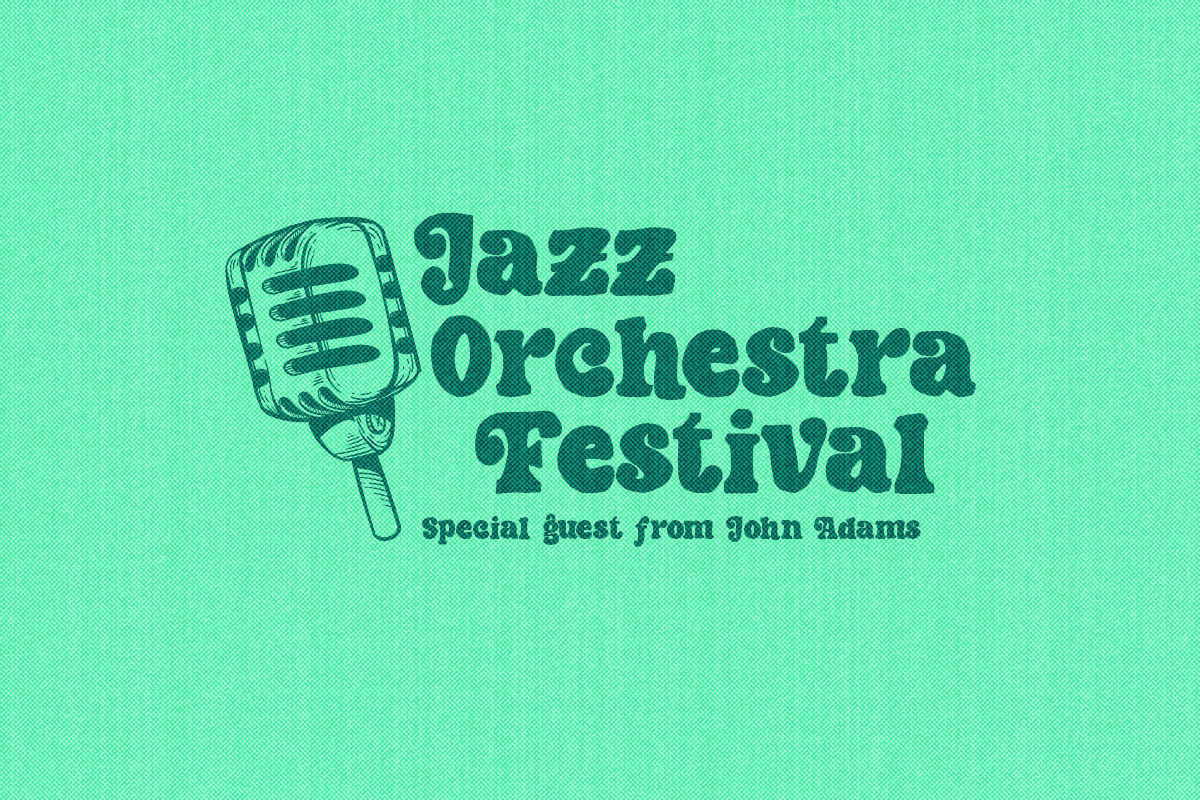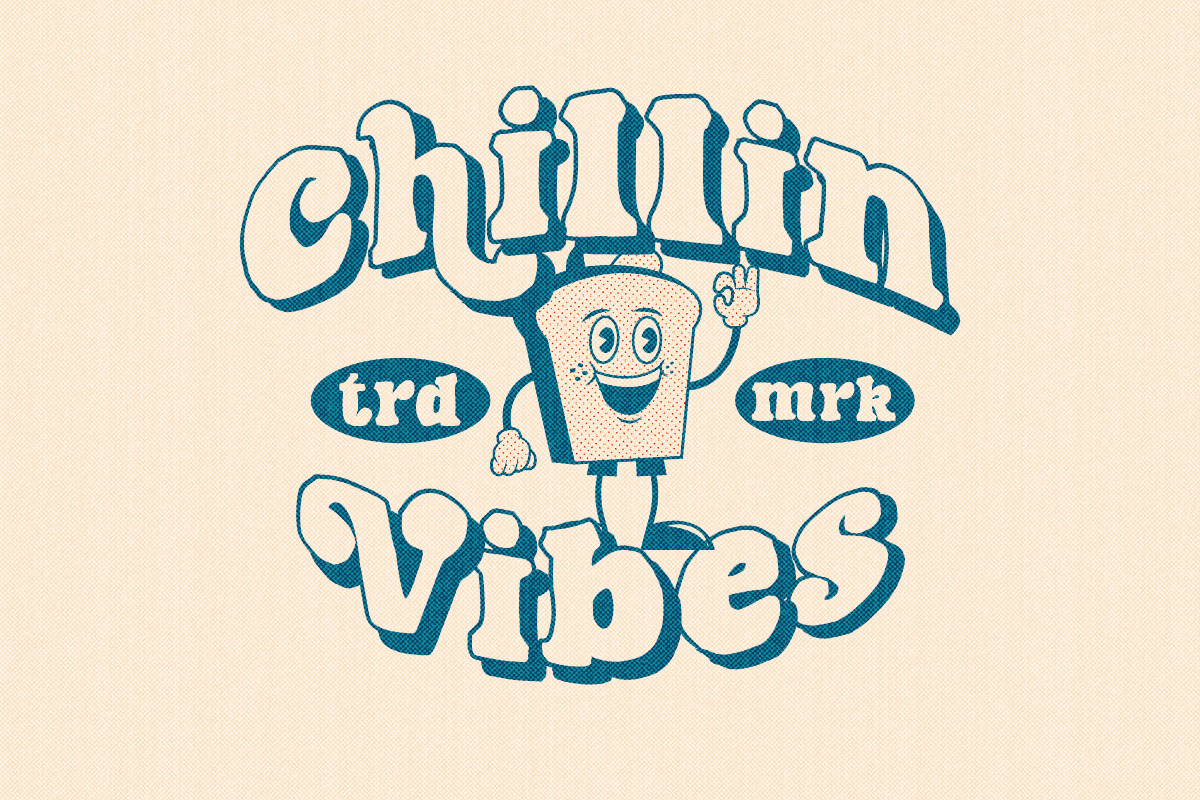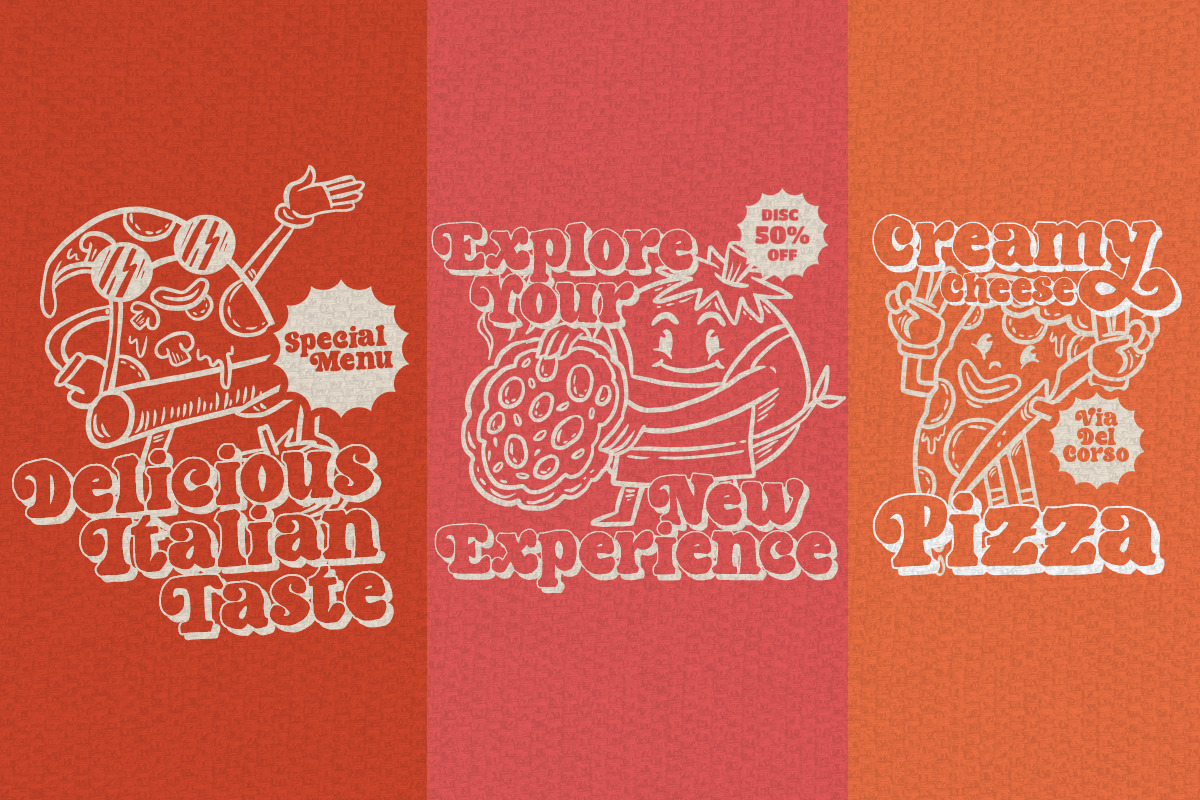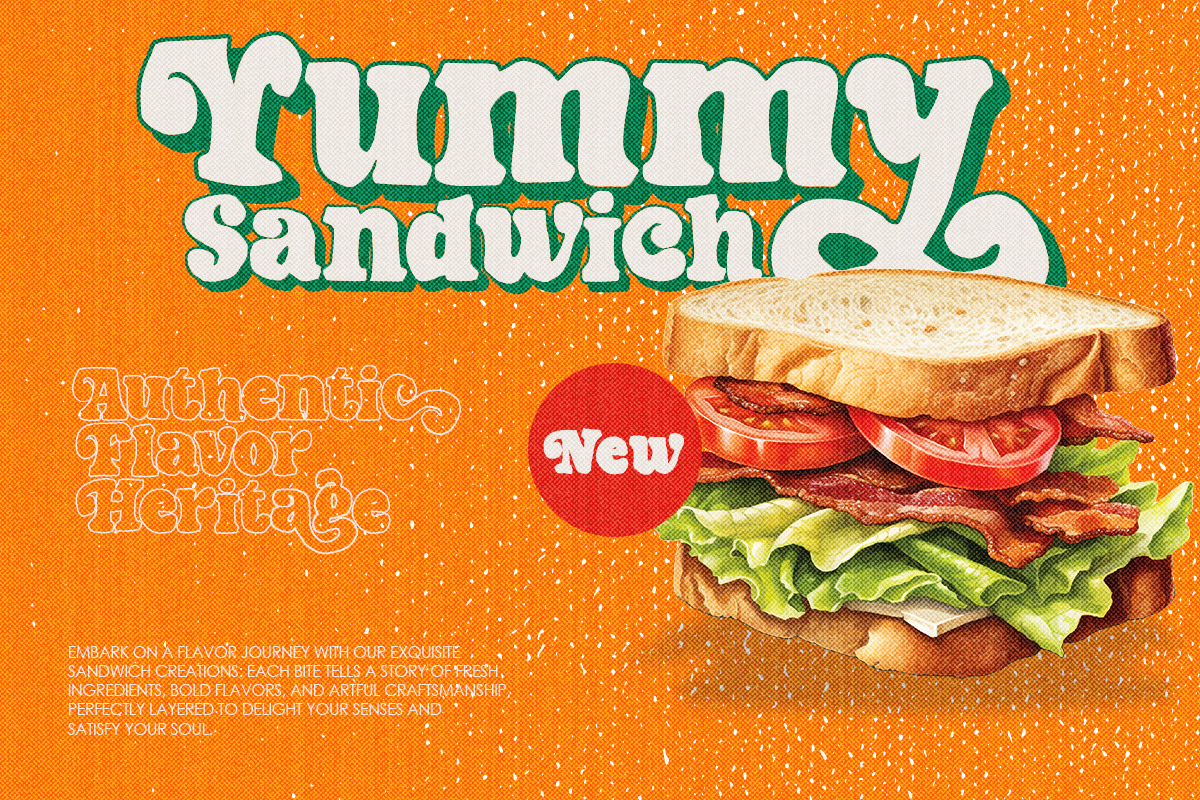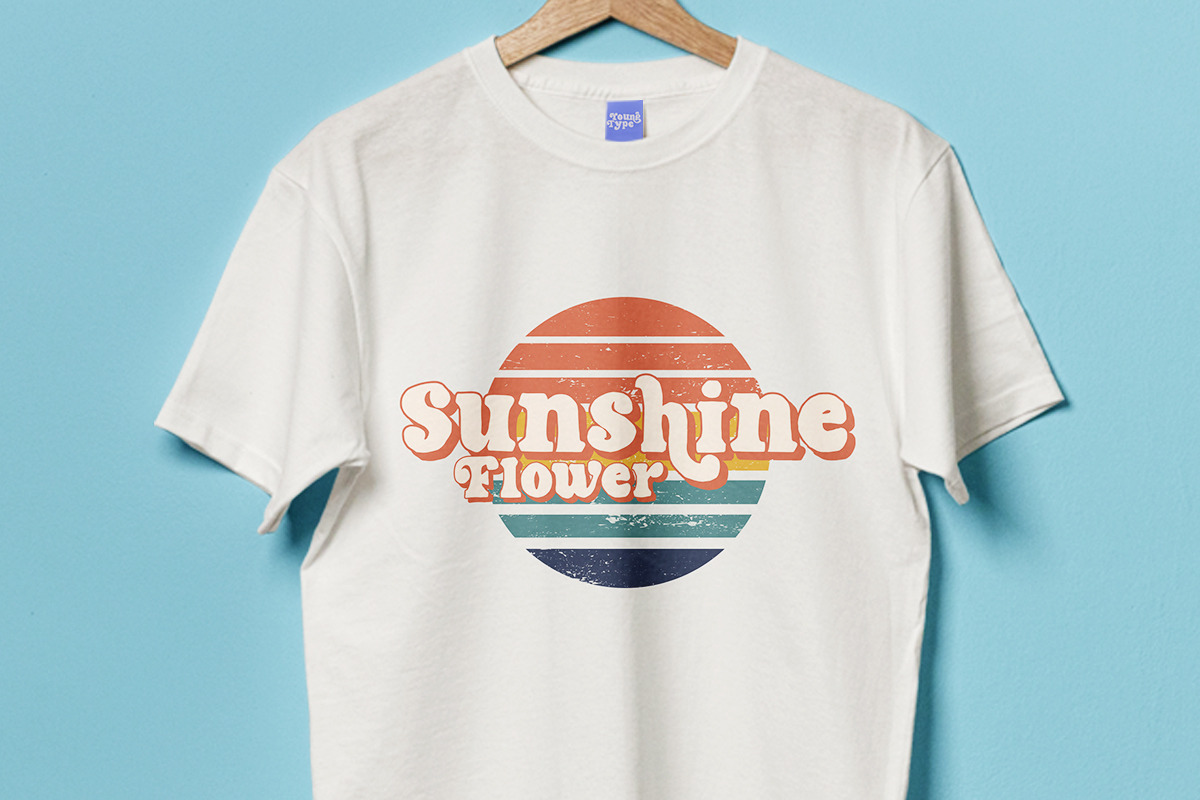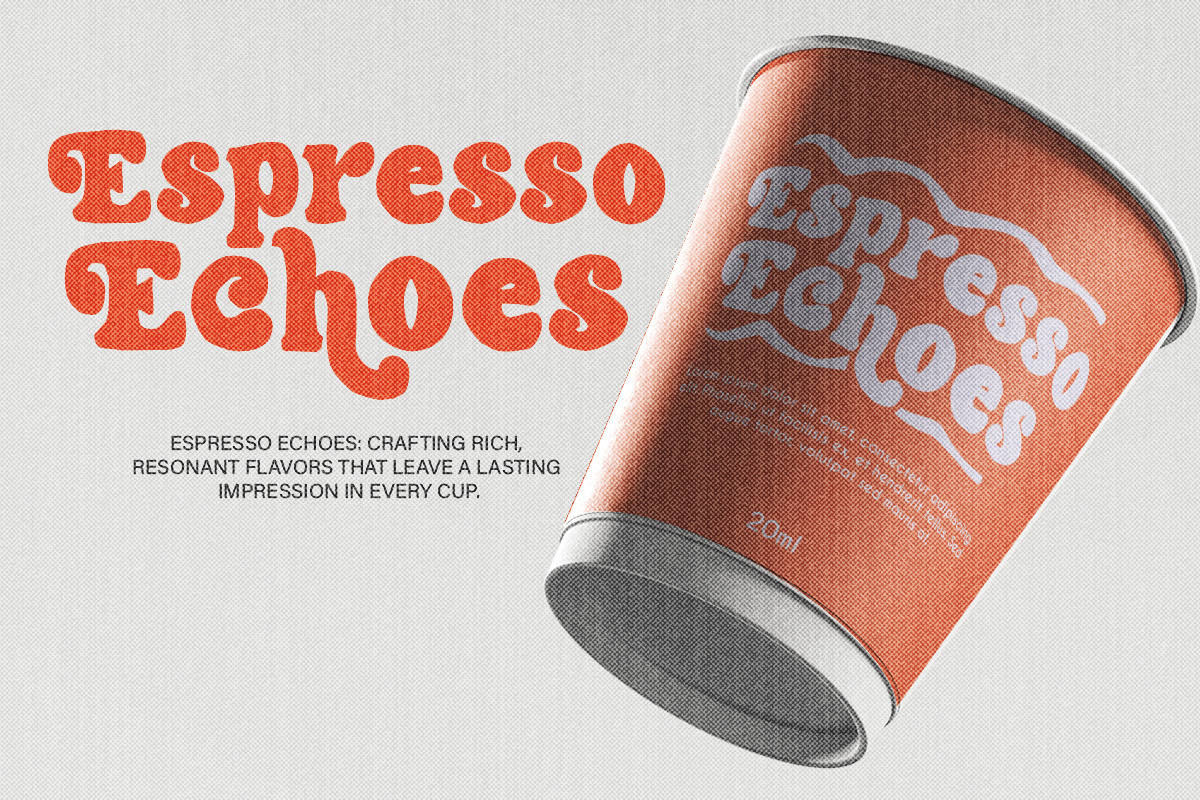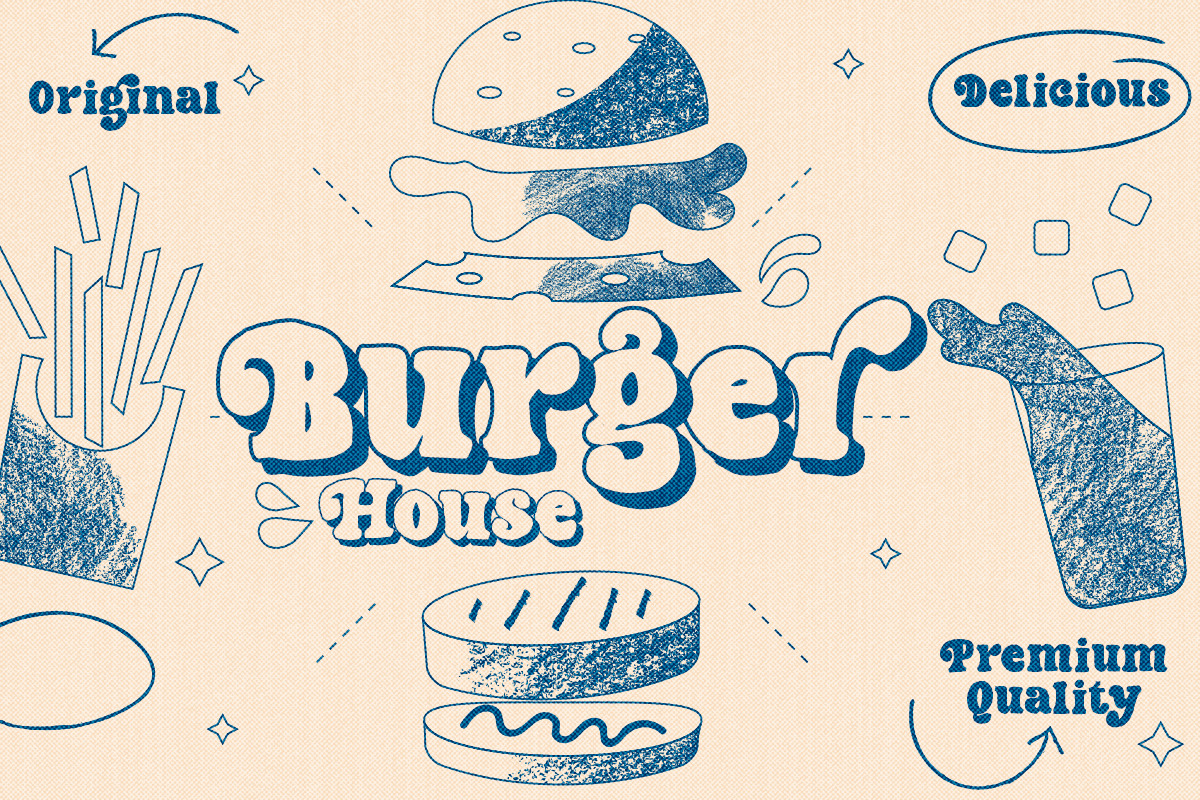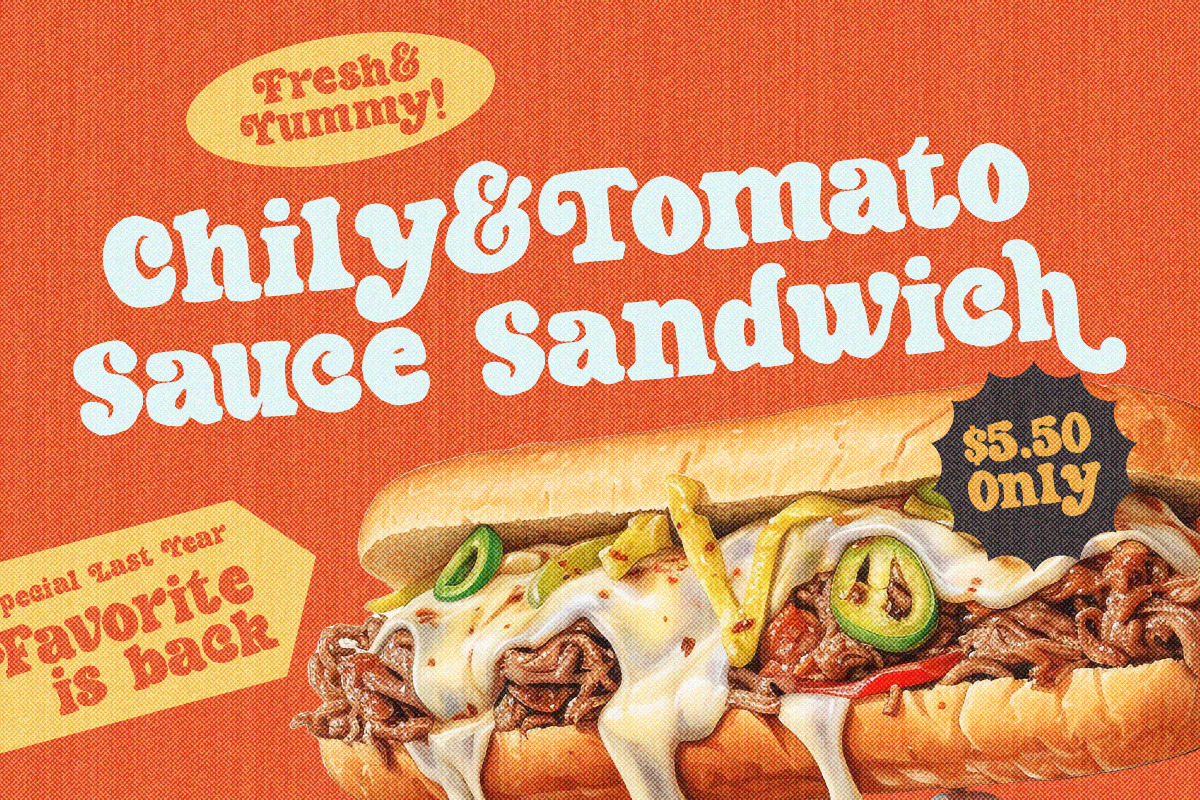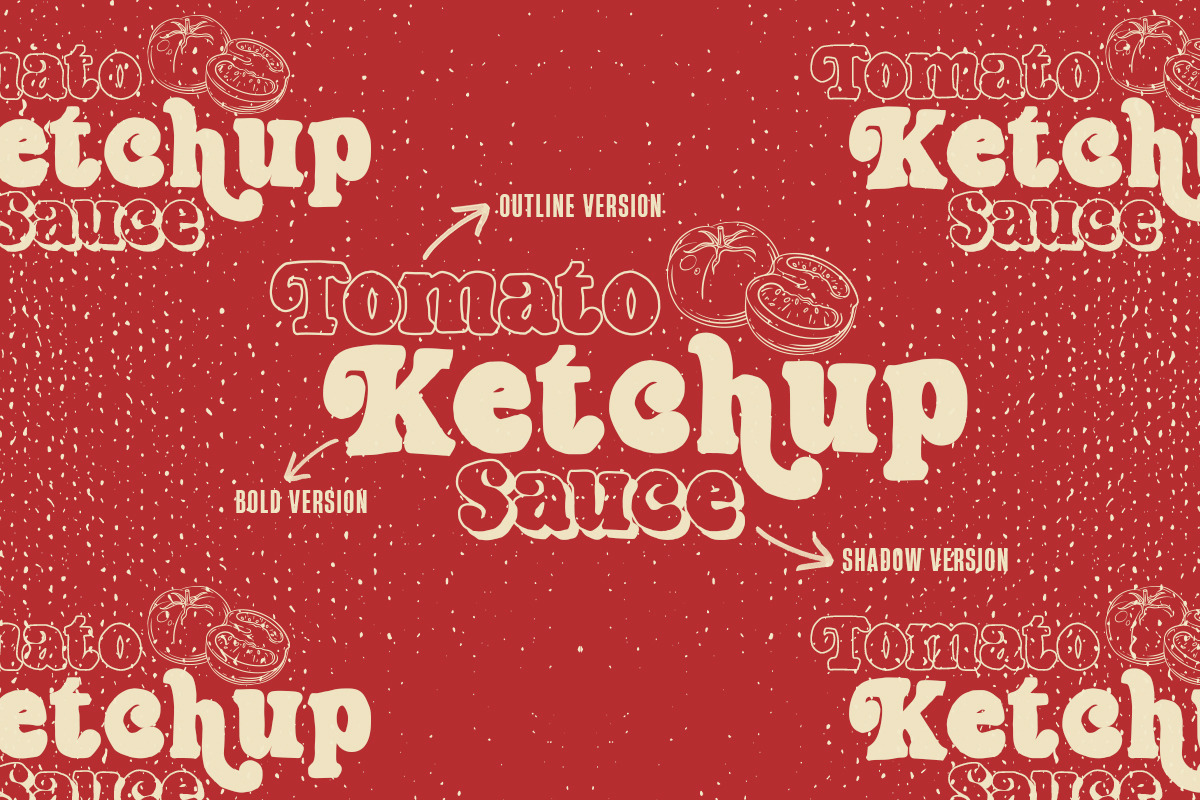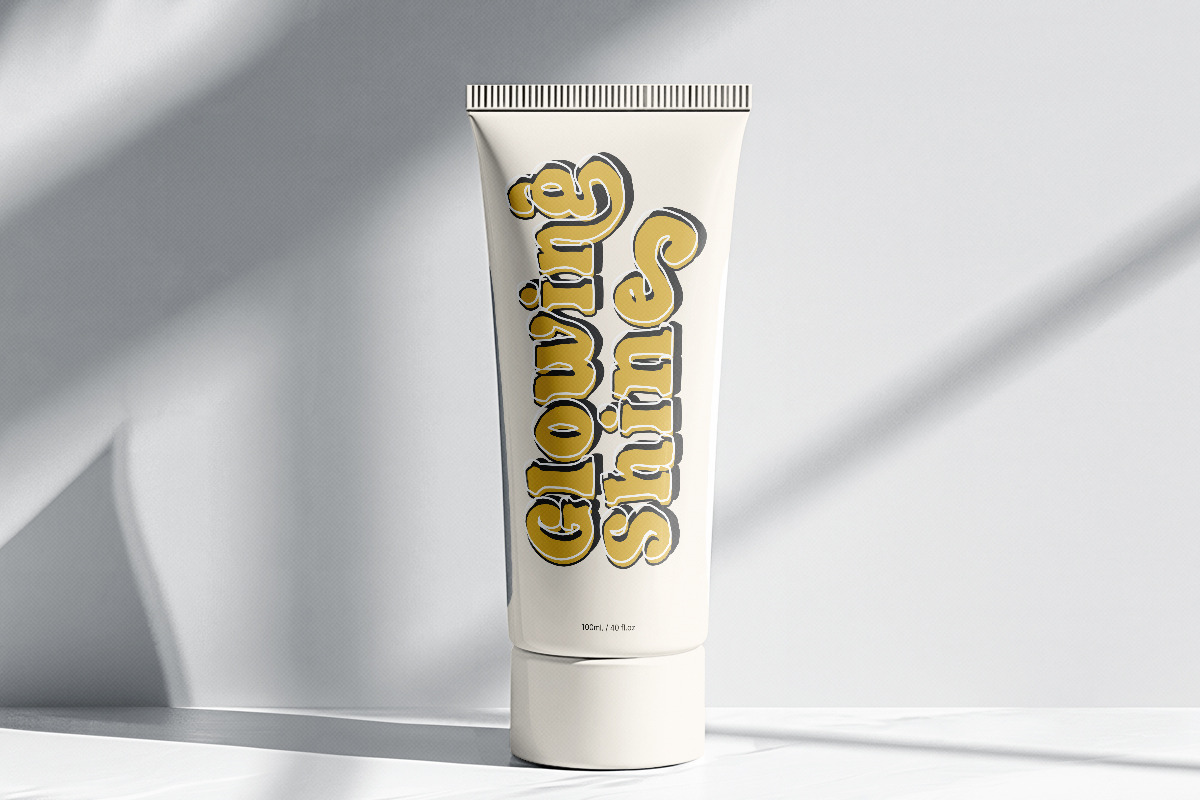
Pegia Display
Pegia Display is a hand brush font made with brush and ink which is equipped with 5 models Regular, Italic, Outline, Bold, Shadow. This typeface is ideal for use in bold watercolor designs or handwritten styles, such as blog titles, posters, wedding elements, t-shirts, clothing, book covers, business cards, greeting cards, branding, merchandise, etc.